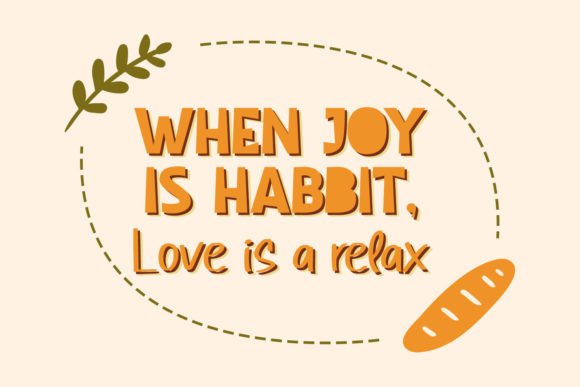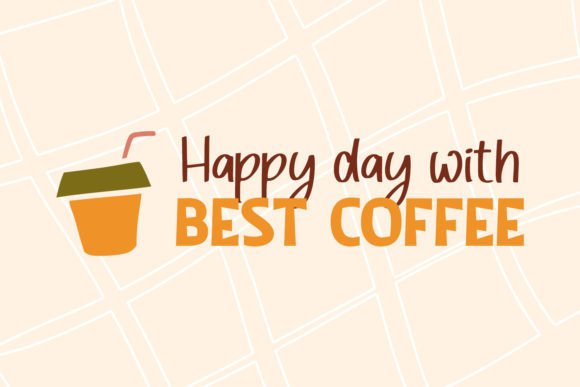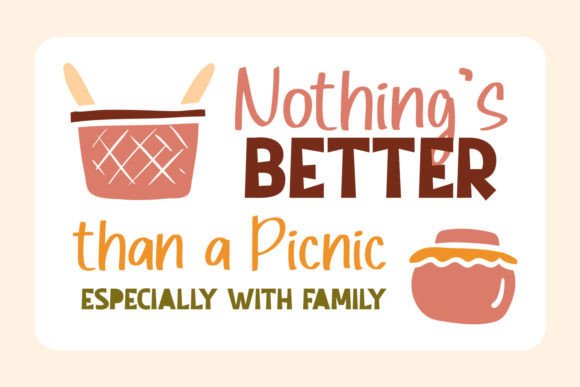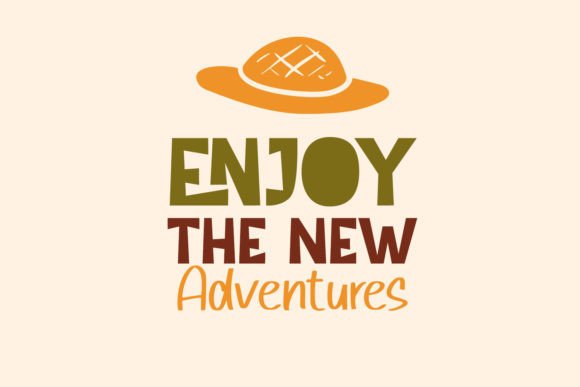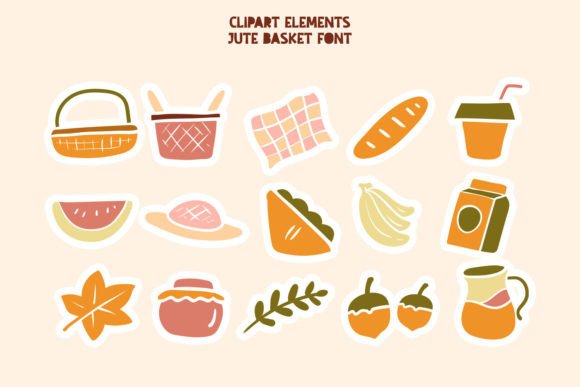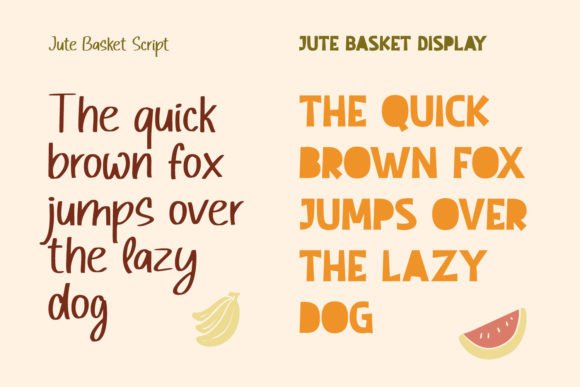
Introduction to Jute Basket Font
Jute Basket is a stylish and beautiful display font that radiates sophistication.
With its sleek lines and graceful curves, each letter is a work of art that exudes modernity and class Use Jute Basket to create designs that are both stylish and captivating.
Key Features of Jute Basket Font
Why Choose Jute Basket Font?